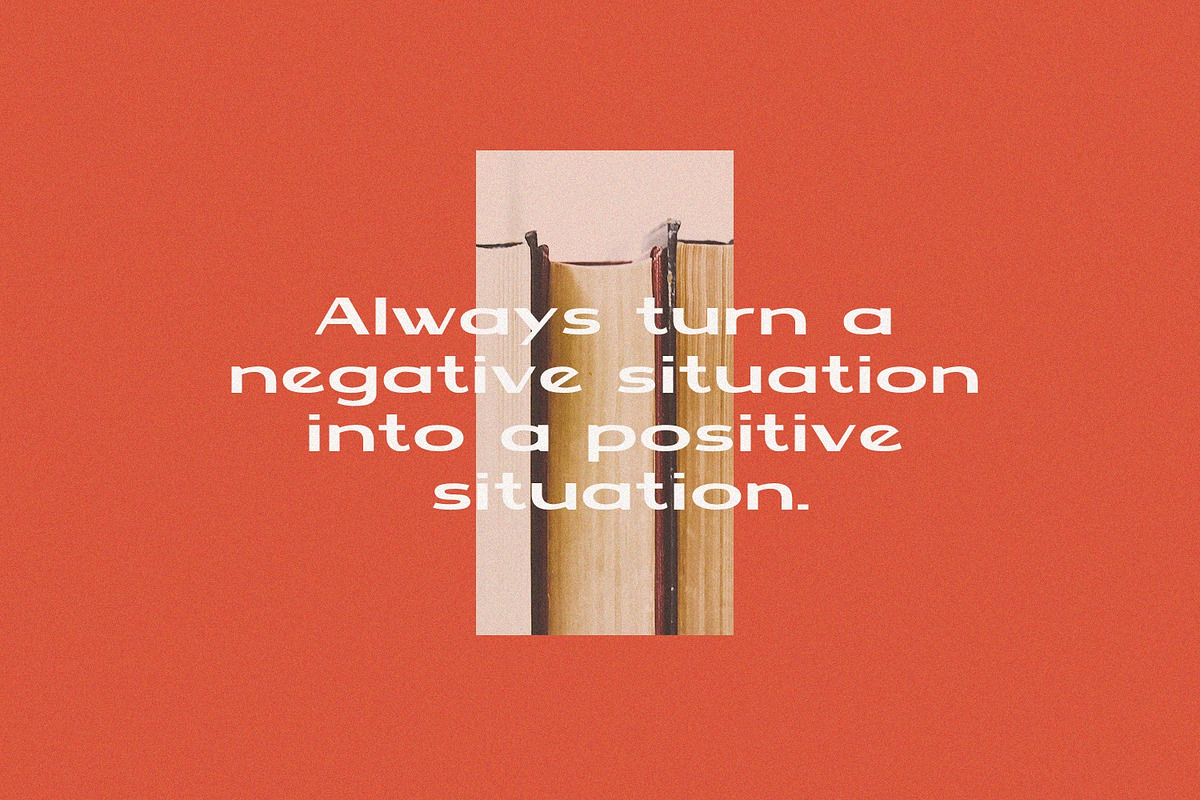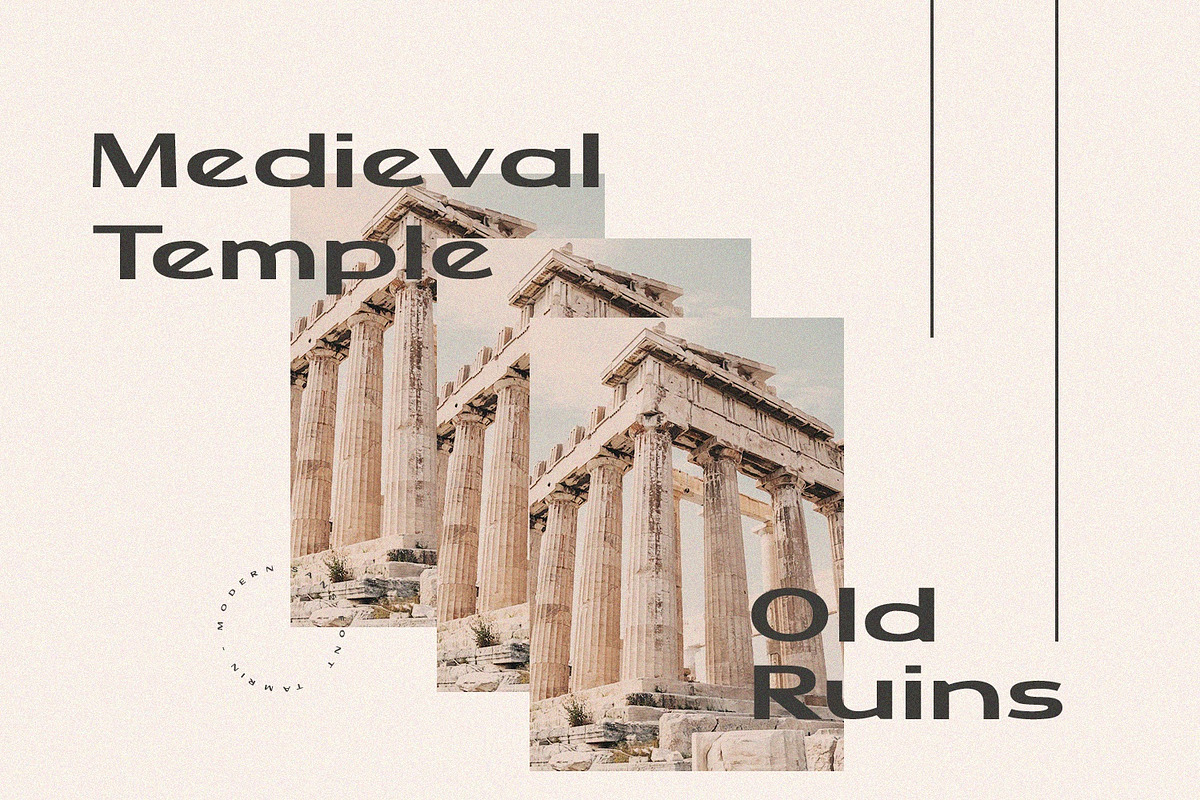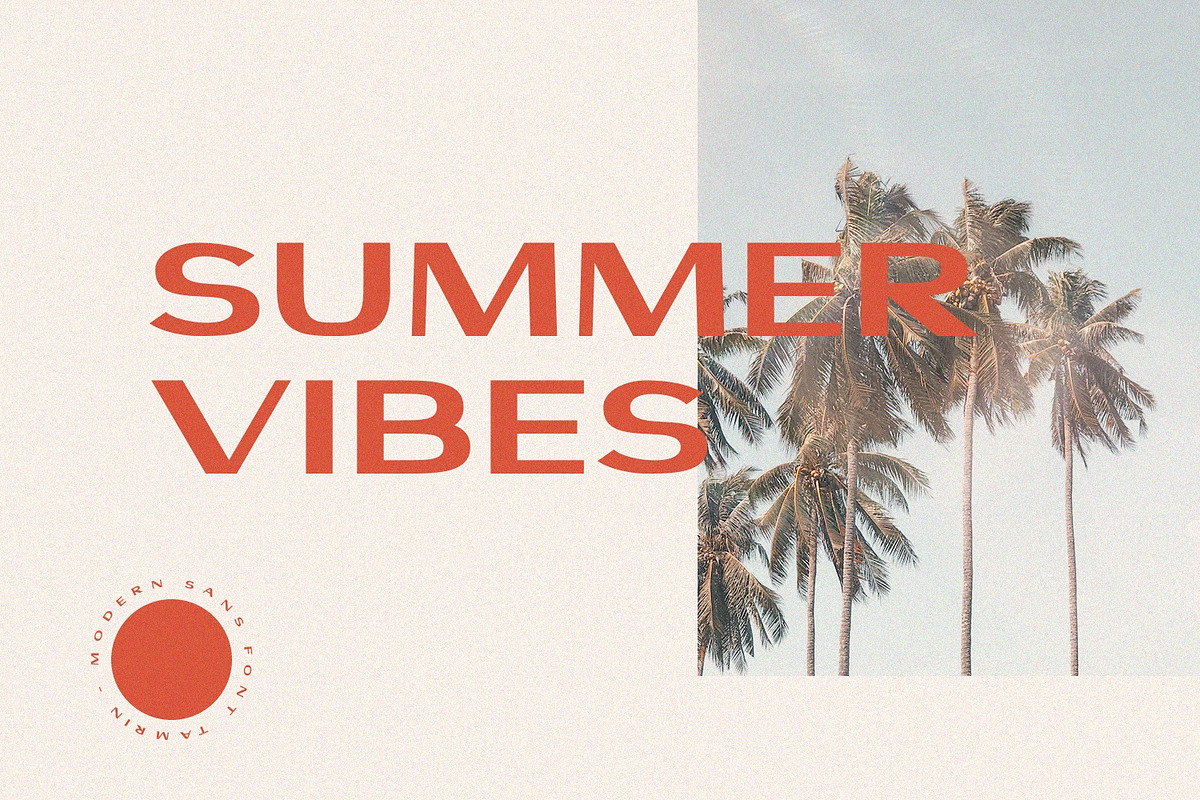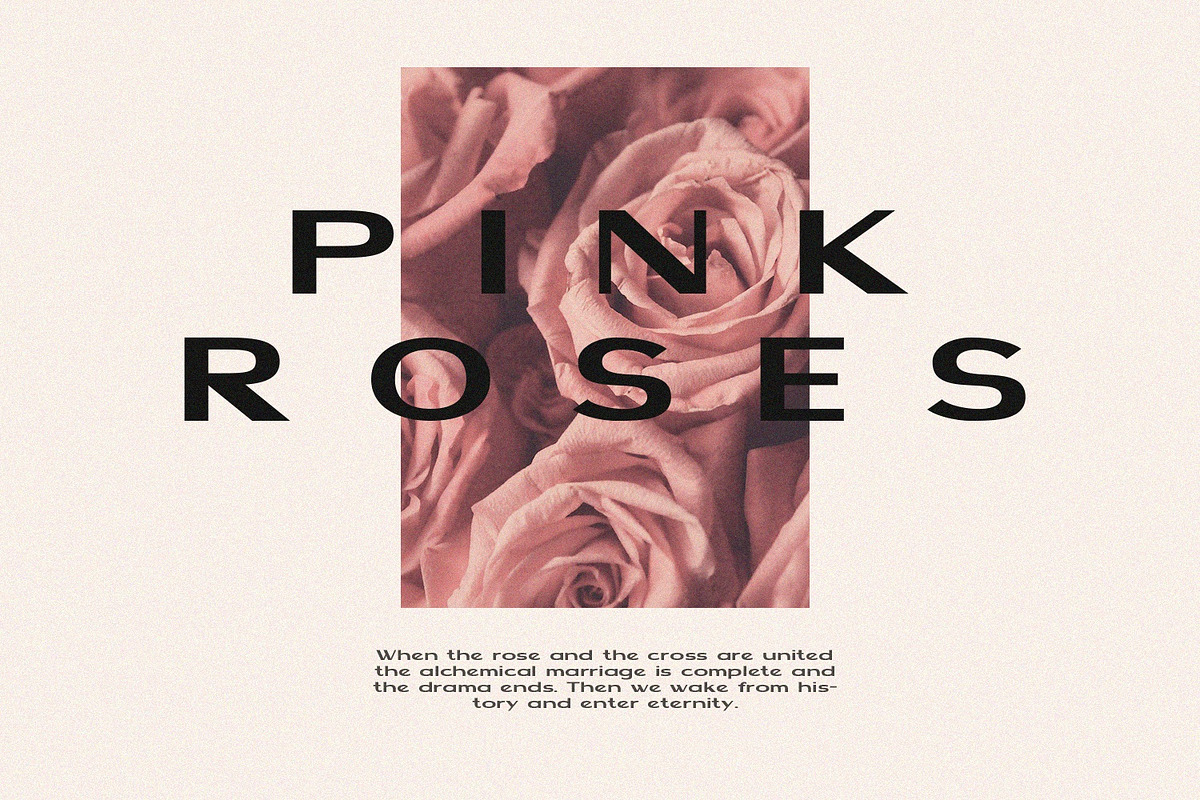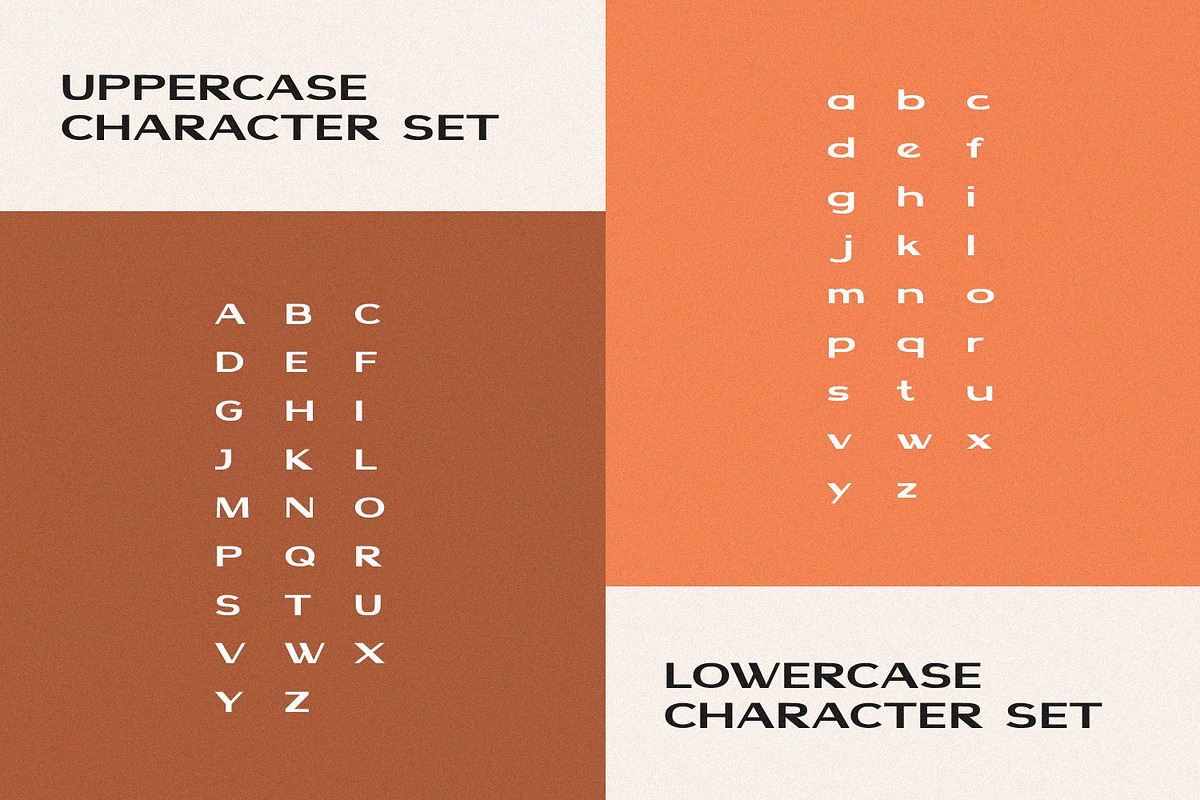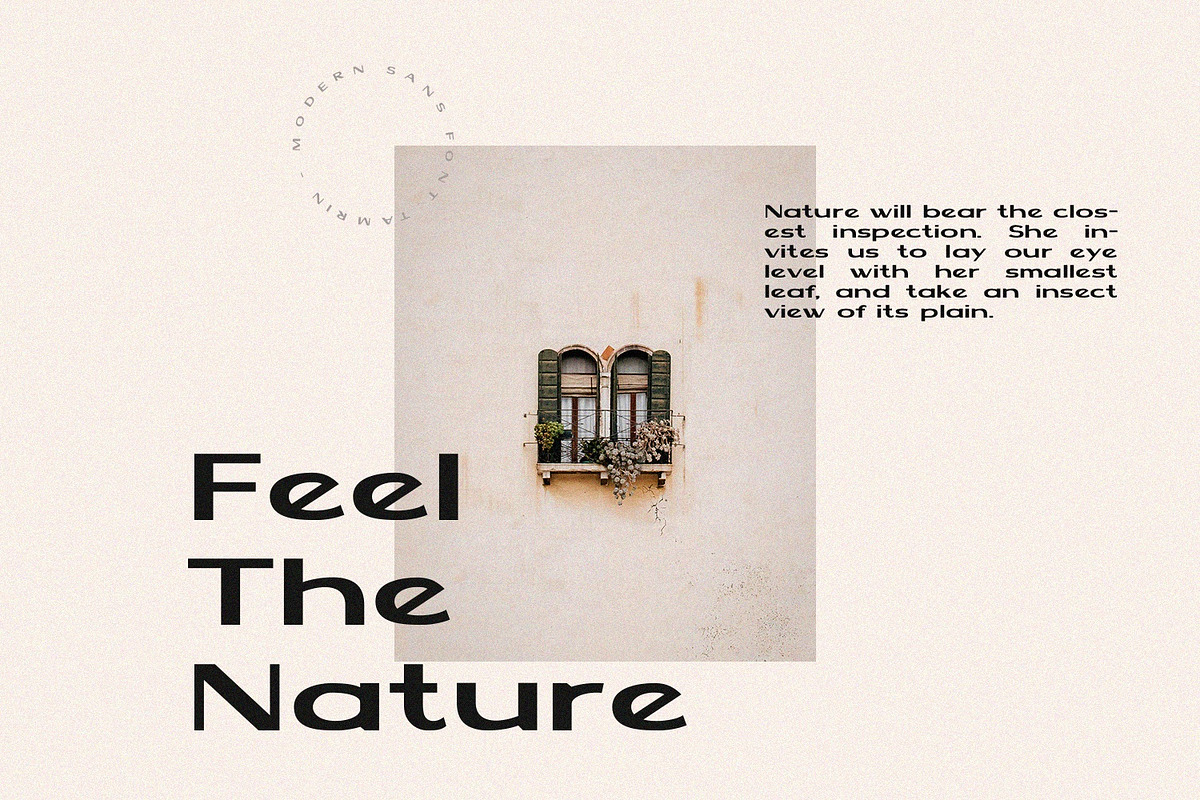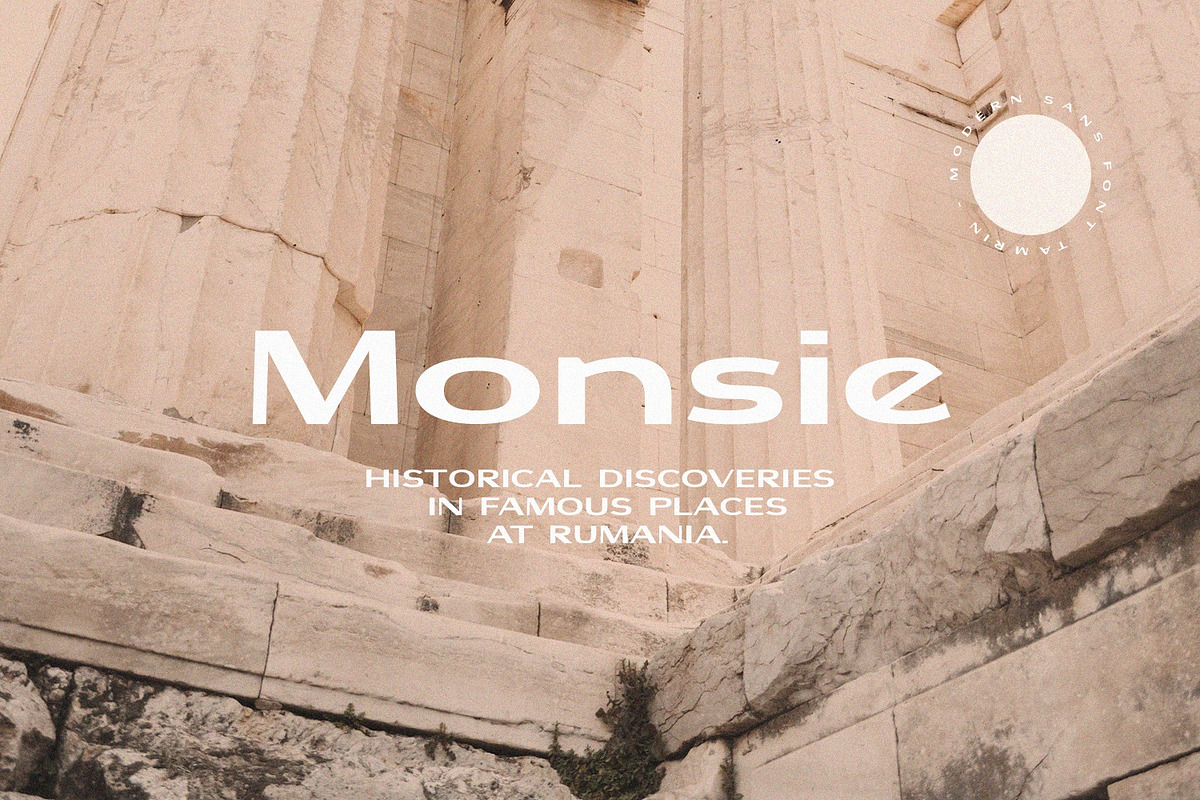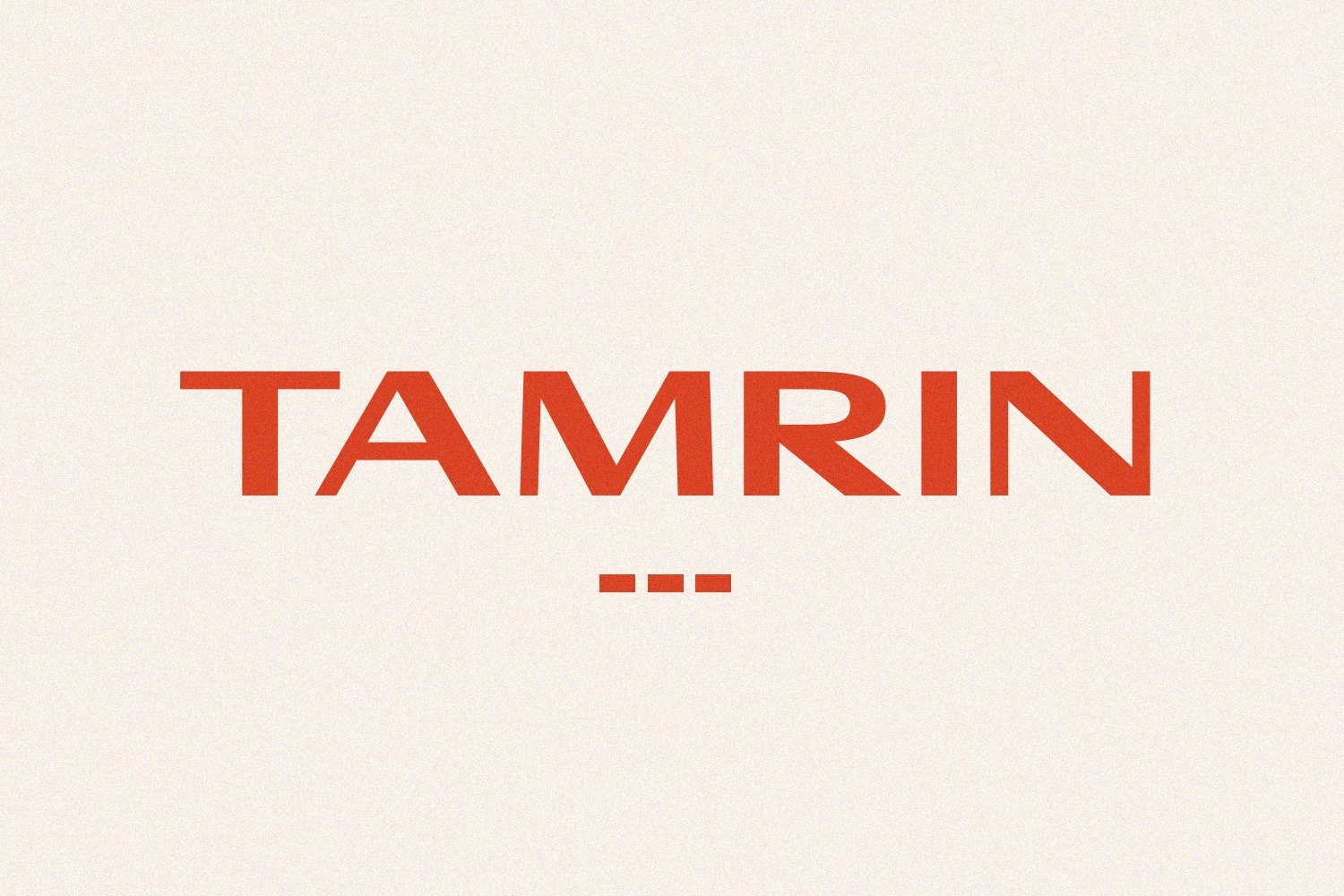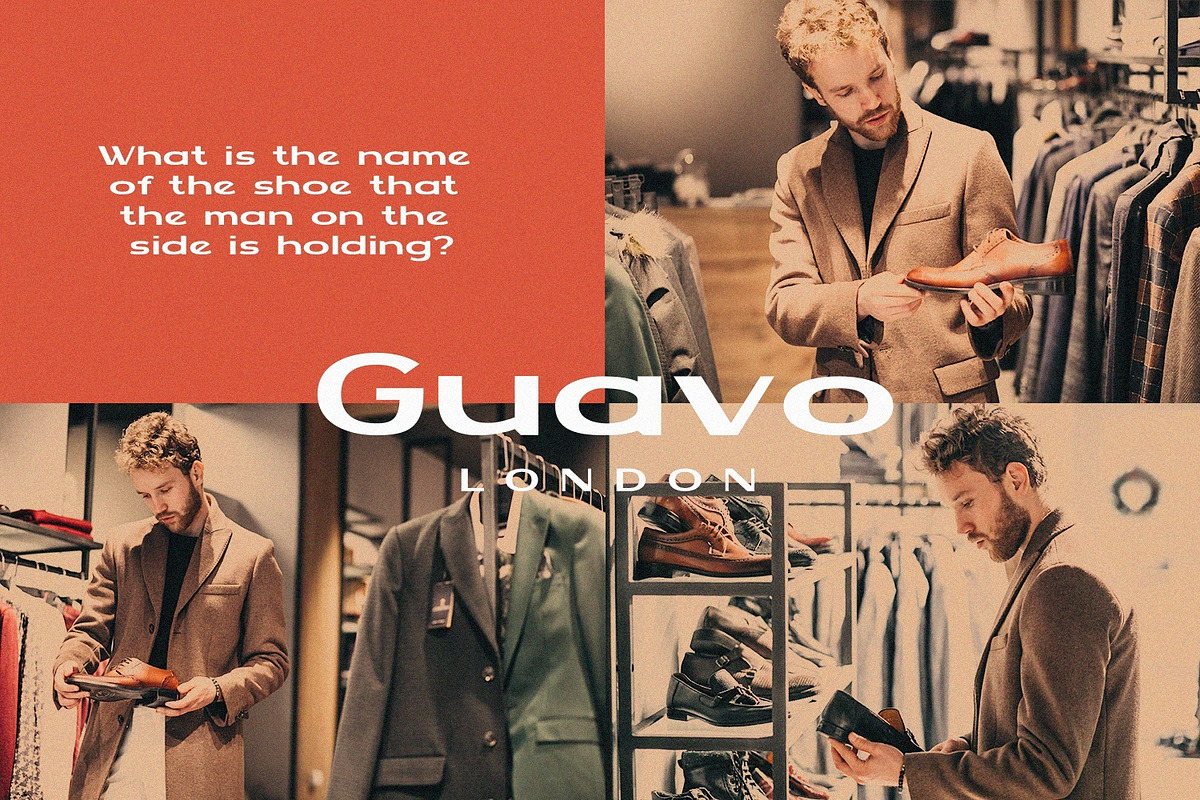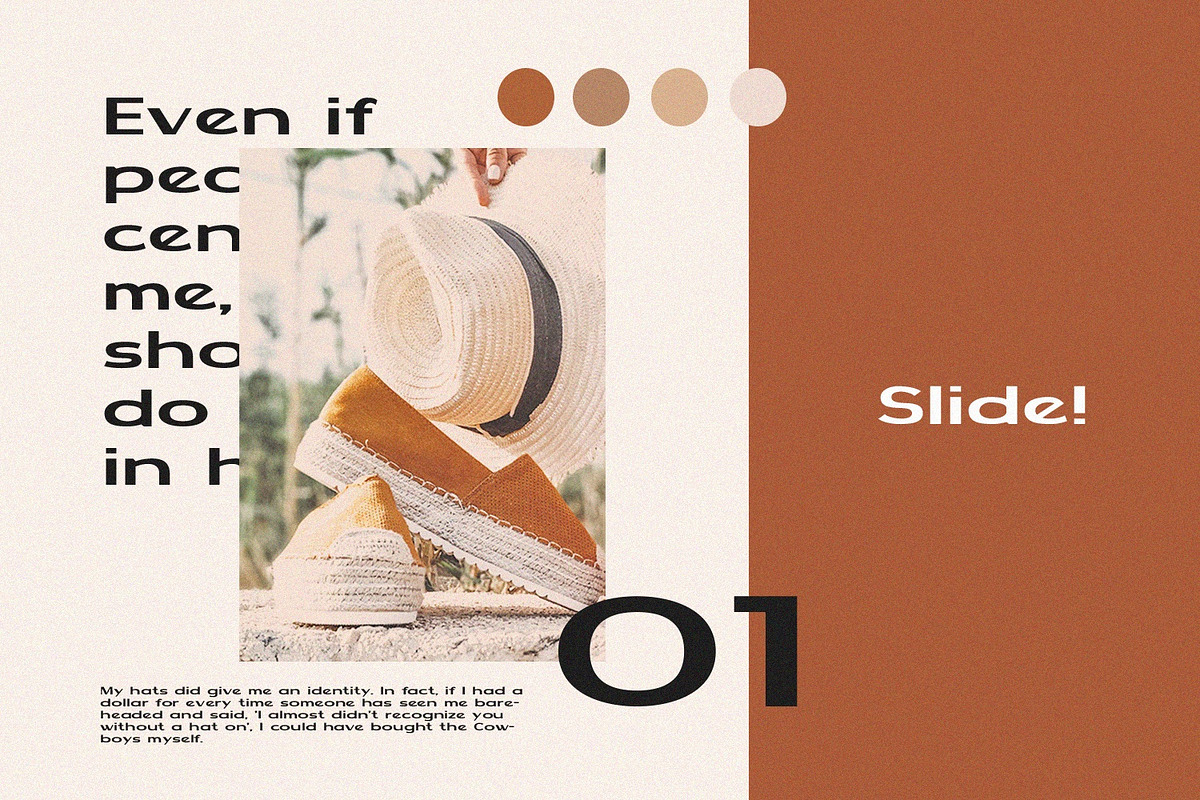
TAMRIN - Modern Sans Font
Tamrin is a font designed to be easy to remember in our minds. So that letters are closely related to classic and retro things. However, this font does not leave the modern impression it displays. Tamrin comes with a full uppercase, lowercase, numbers and punctuation + European language support. it's perfect for logos, name card, magazine layouts, invitations, headers, or even large-scale artwork.